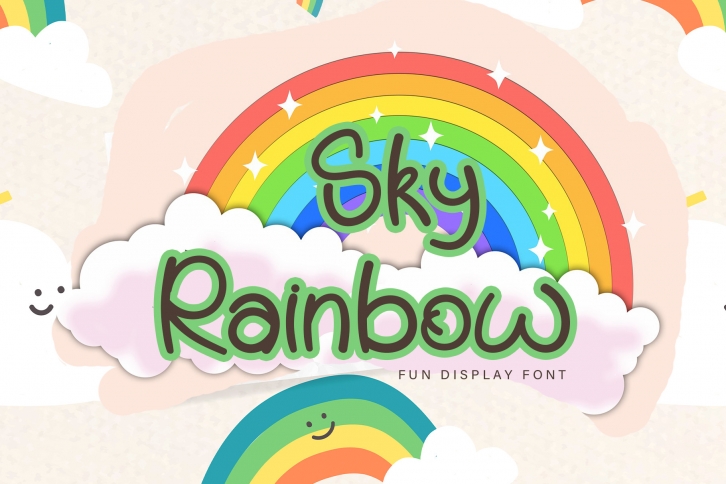
Sky Rainbow is a dainty, round lettered and cursive handwritten font. This sweet, gentle font will look gorgeous on a variety of design ideas. It will add a cheerful touch to each of your projects!